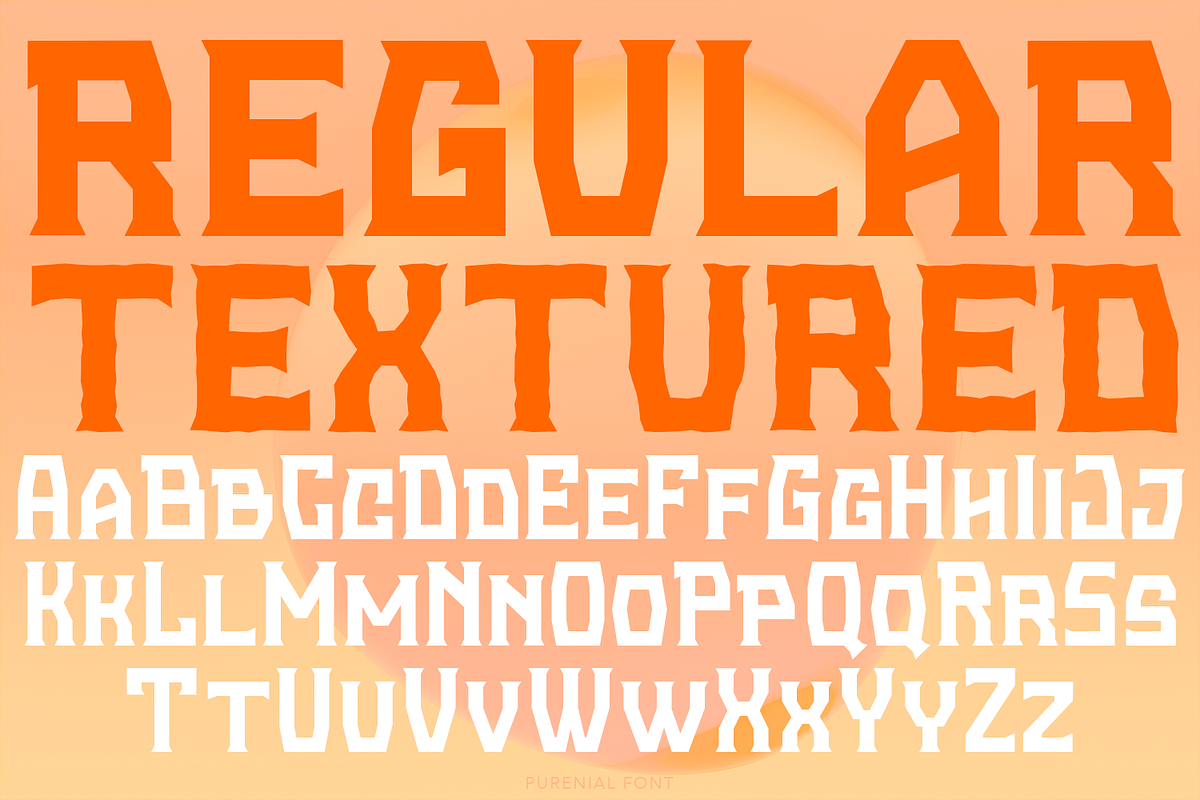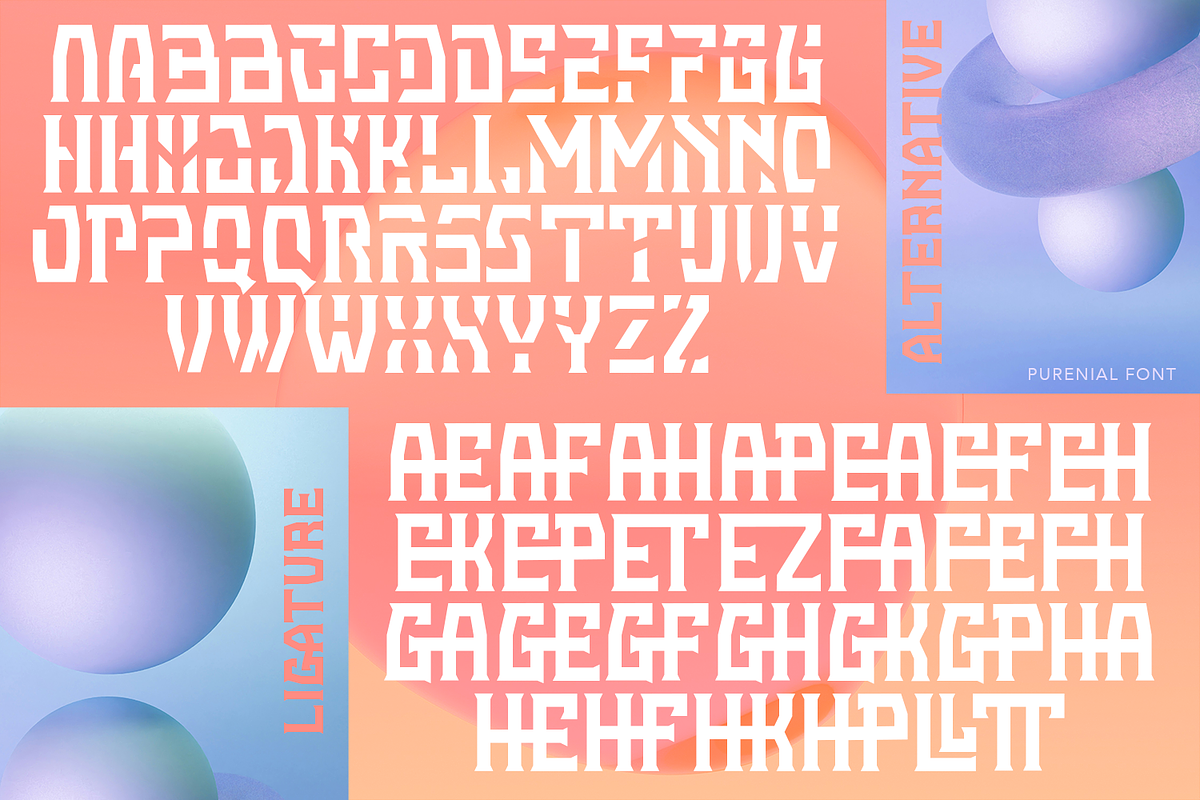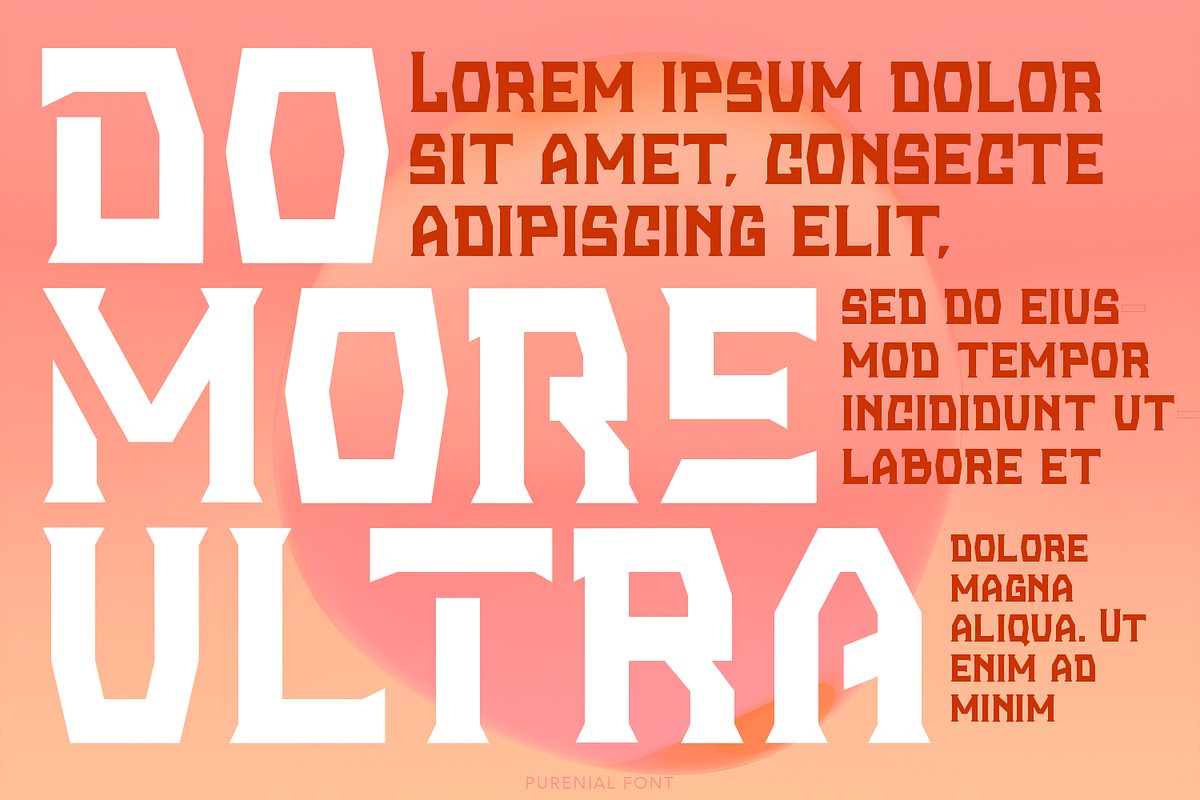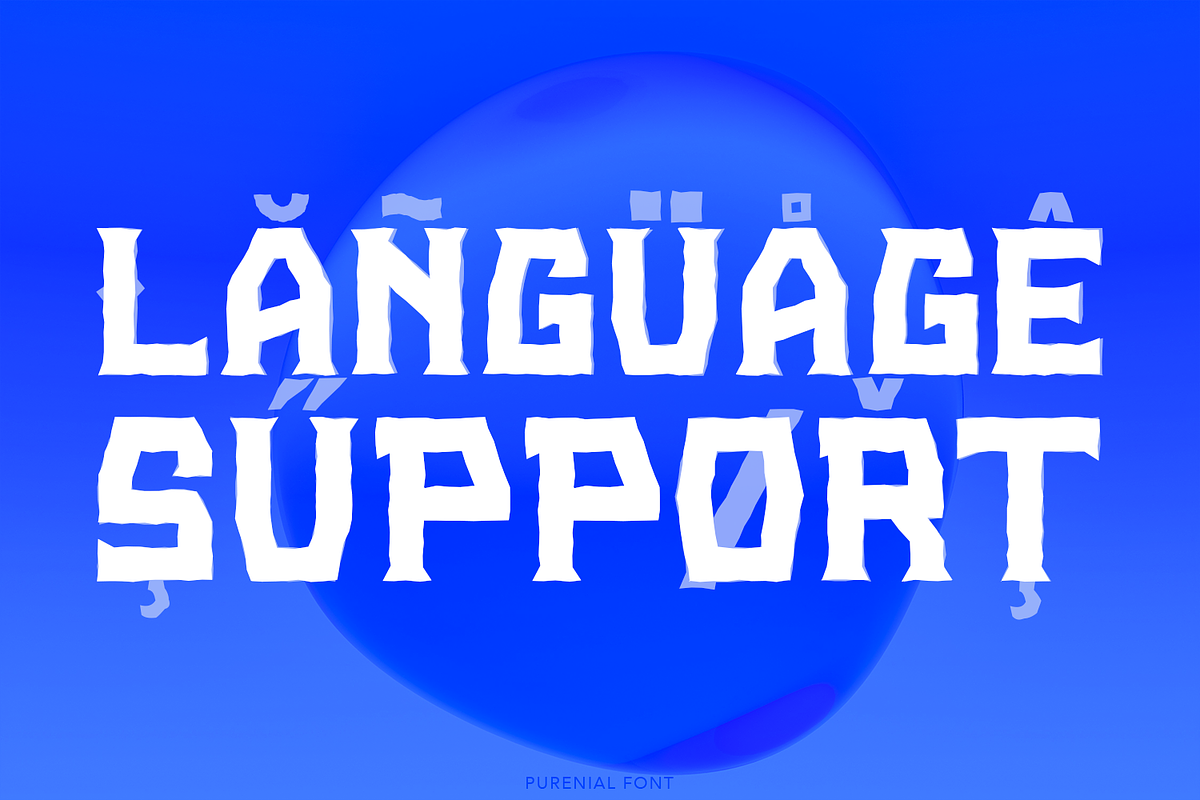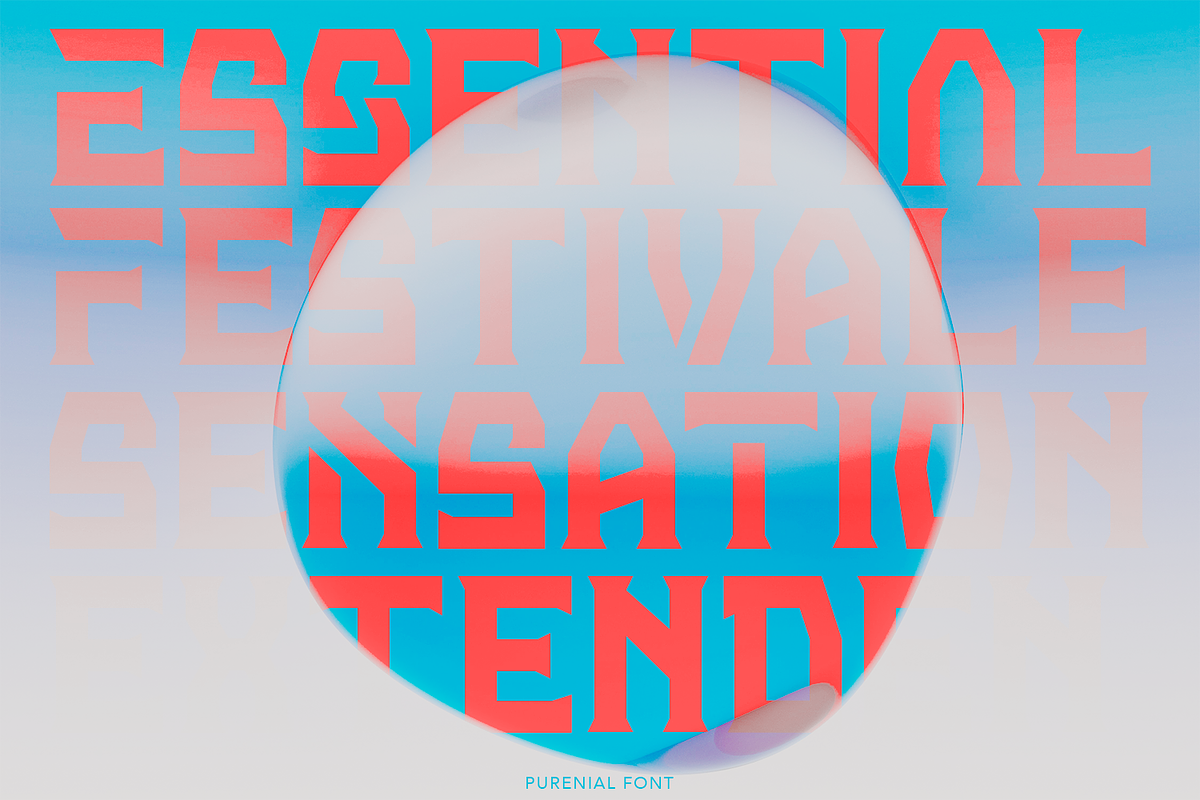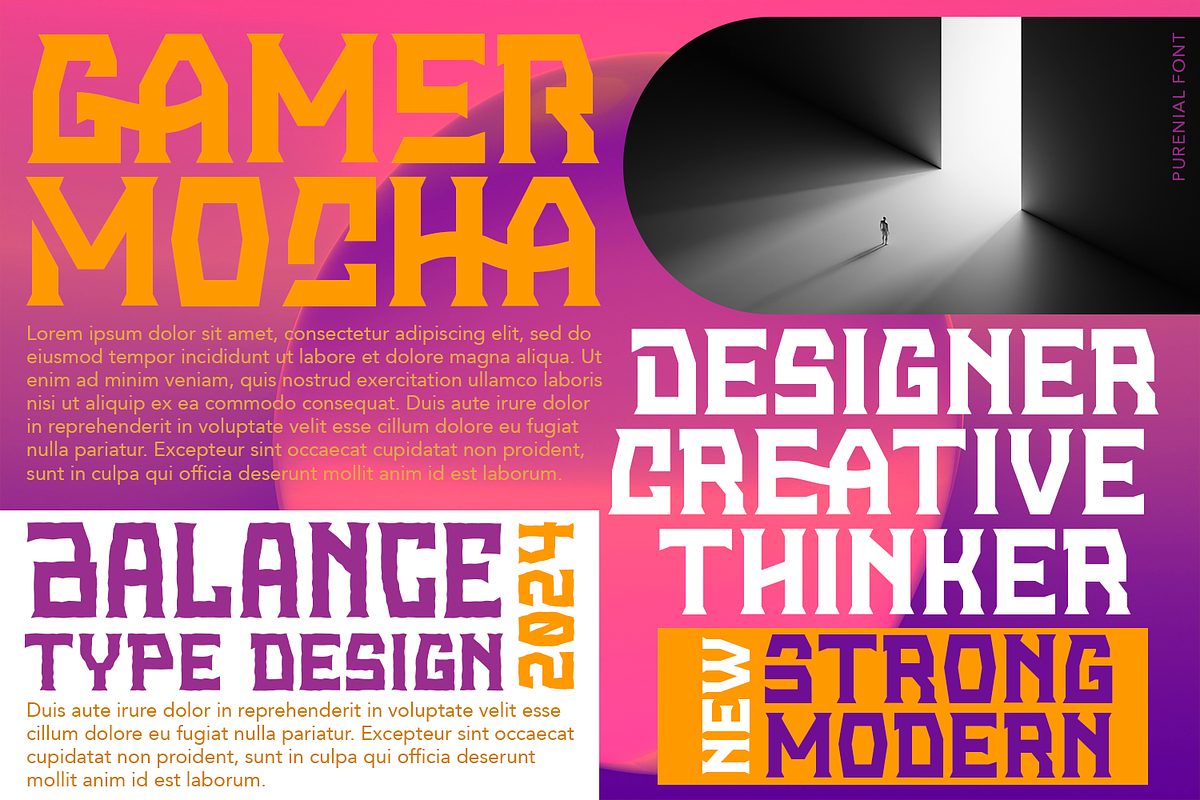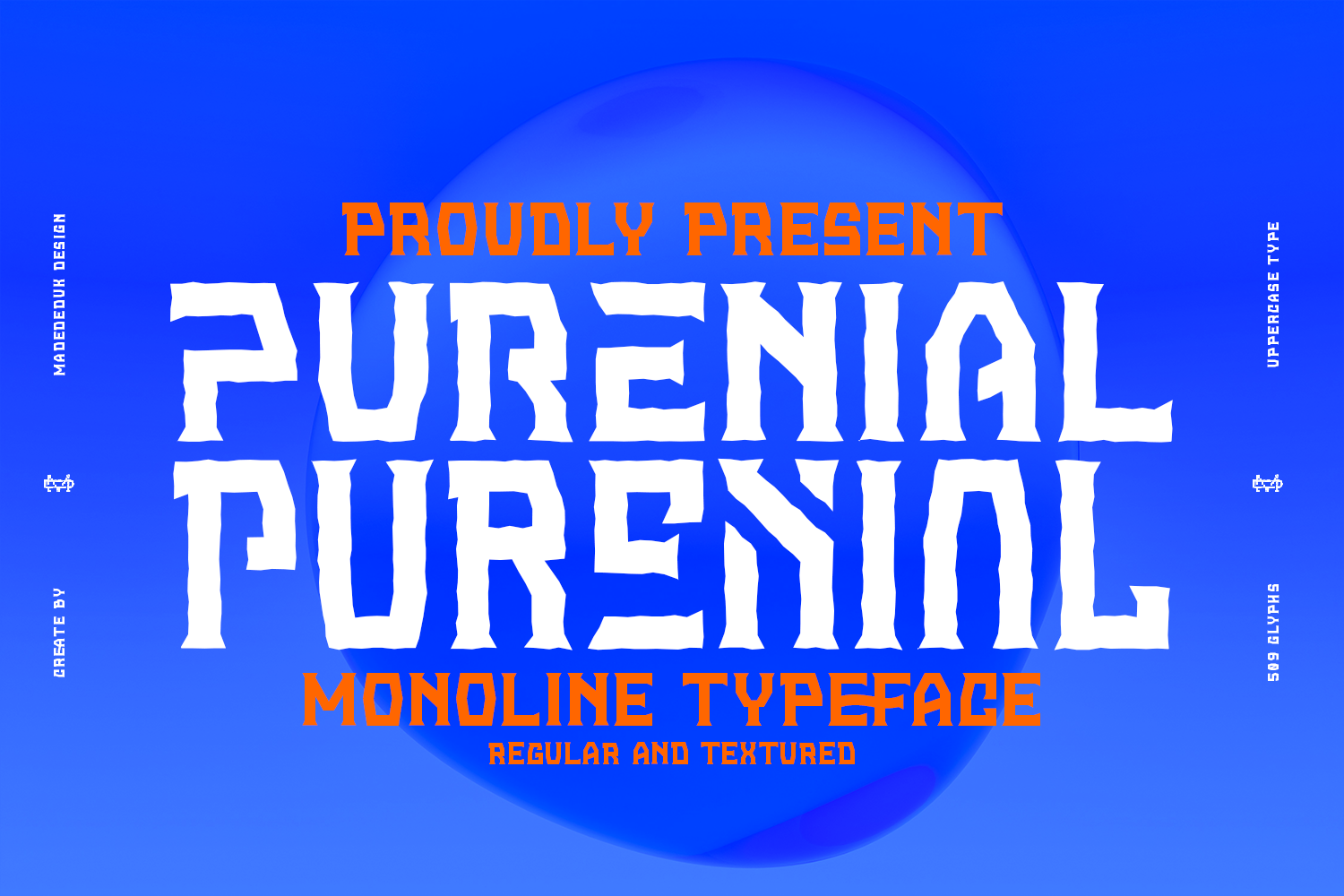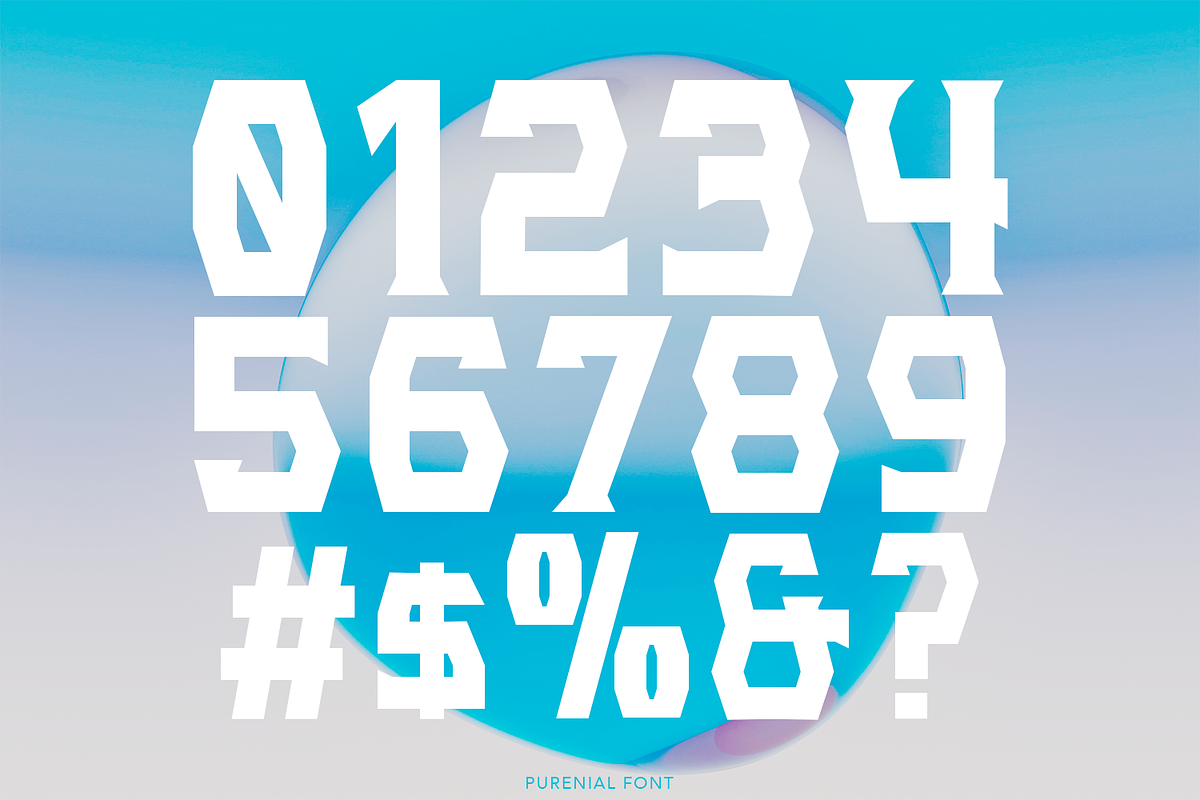
Purenial Font
Purenial is a monoline font, It easily cooperates together and perfect for creating the vintage style. All characters have a shape that gives a strong look in design. These fonts have clean and textured versions, special features such as stylistic alternates and ligatures.
- International Glyphs